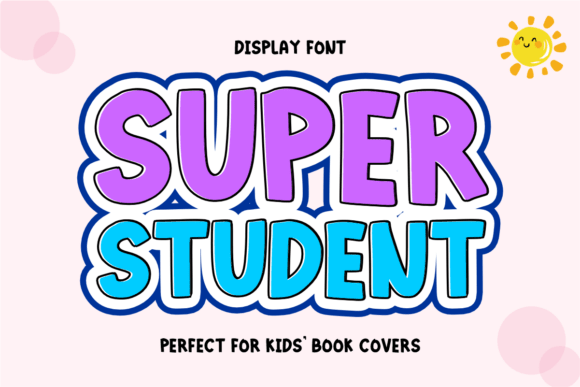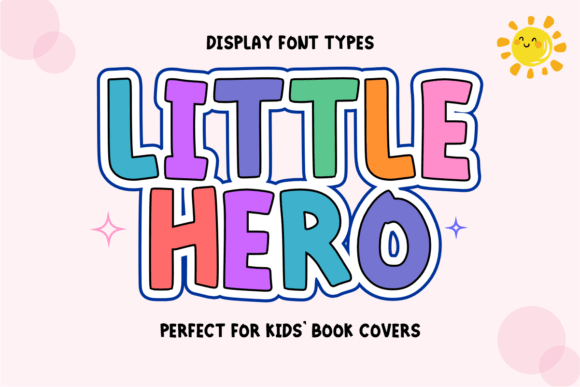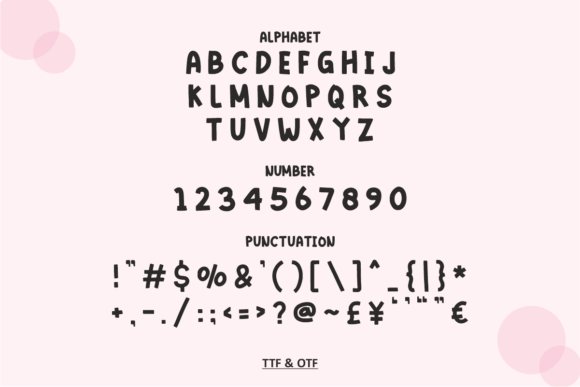
Introduction to Bright Academy Font
🎓 Bright Academy – Playful, Bold & Cheerful Kids Display Font 🎓 Bring a burst of energy and joy to your educational projects with Bright Academy.
This font is a vibrant, chunky display typeface designed specifically to capture the imagination of children and the hearts of teachers Featuring soft, rounded edges and a friendly, hand-drawn feel, it radiates warmth and positivity in every character.